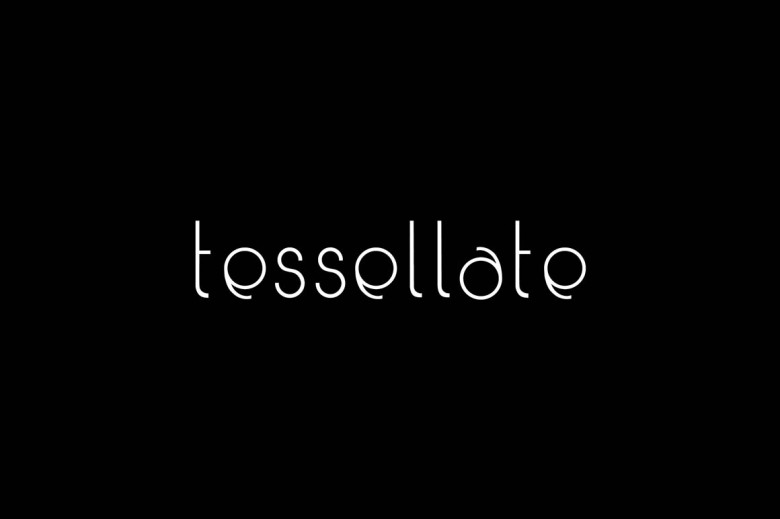
Tessellate Font
This free clean & modern style sans serif custom font is from Kylee Barnard. Tessellate is a display sans serif typeface characterized through a combination of a geometric circle and ‘rivers’ flowing off select characters, inspired by organically formed channels that branch off of deltas. Download & enjoy ?